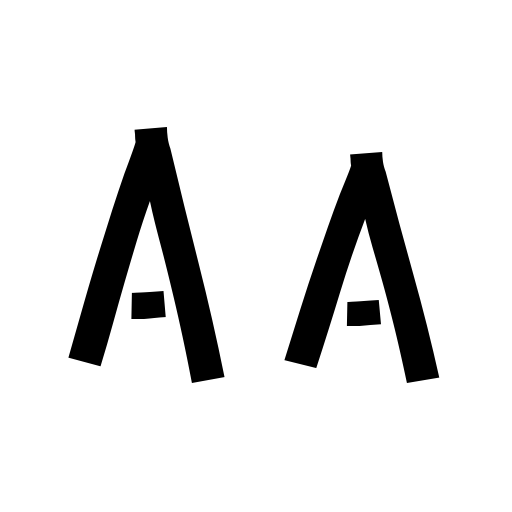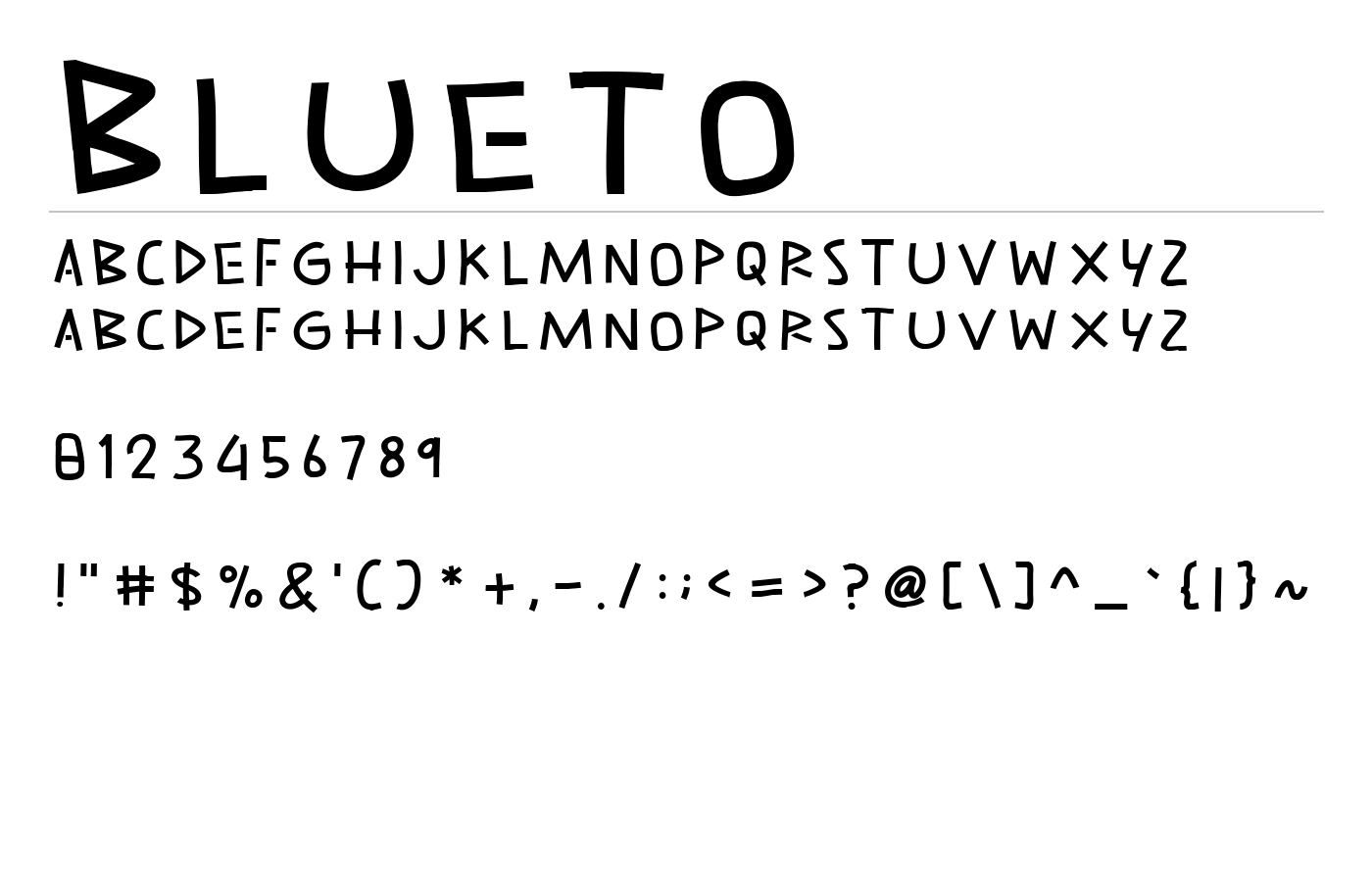
Blueto is a playful, hand-drawn sans serif font with an informal and friendly character. Its irregular strokes and unique letter shapes give it a whimsical, casual feel, making it perfect for creative projects, children’s materials, and branding that seeks a lighthearted, approachable vibe. This font works well in headlines, logos, and any design needing a personal, fun touch.
Blueto Font
About Blueto Font
| Font family | Blueto Font |